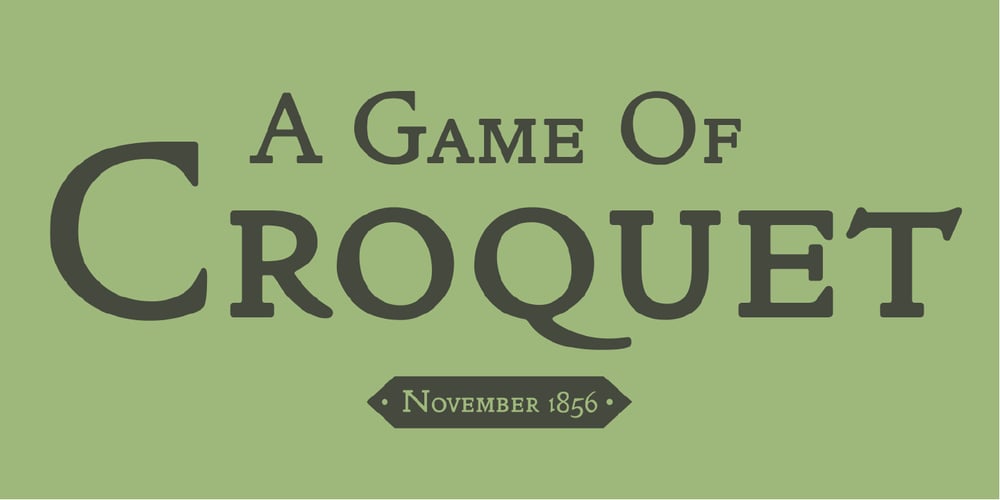
ITC Golden Type Font Family was designed by Sigrid Engelmann, Helga Jörgenson, William Morris and published by ITC. ITC Golden Type contains 5 styles and family package options. Canadian designer Anthony De Meester created the font in 1989. Vienna Extended is a light, elegant sans serif. Simplicity is the hallmark of Vienna and it can be used most effectively where a look of regal elegance is desired. Vienna is a trademark of International Typeface Corporation.